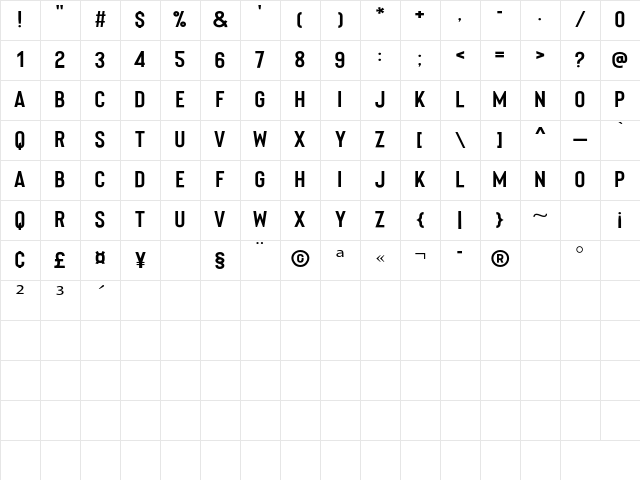
Bartenique Regular
Design Context for Bartenique
Bartenique is a composed and adaptable typeface that performs quietly and consistently across a wide range of design contexts.